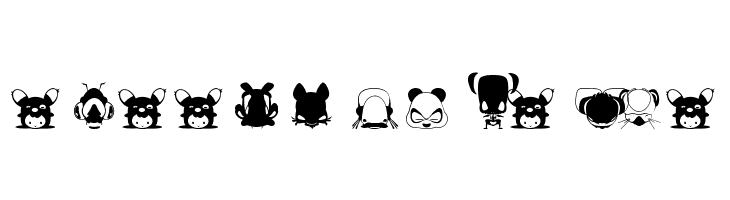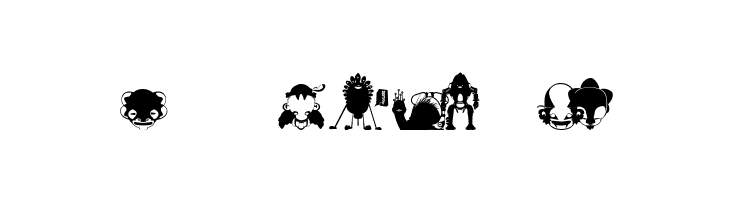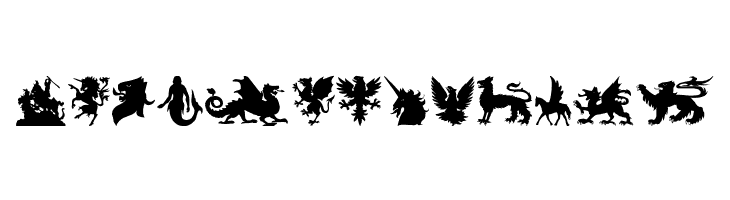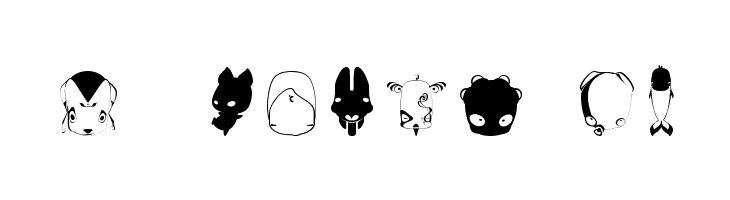
A modern, geometric font with consistent line weight and minimalist design.
A decorative font inspired by prehistoric cave paintings with unique pictograms.
A distressed, grunge-style font with a vintage yet modern appeal.
A distressed, stencil-style font with a vintage, industrial aesthetic.
A bold, decorative font with a 3D effect and mythical, runic-inspired design.
A decorative script font with floral embellishments and a distressed texture.
Science fiction-themed pictogram and icon set with technical illustrations.
Primitive, pictograph-style font with hand-drawn, irregular shapes.
A bold, cartoonish pictogram font with expressive faces and icons.
A bold, expressive font featuring intricate pictorial symbols with artistic flair.
A diverse collection of bold, decorative pictograms and dingbats.
A utilitarian symbol set based on German traffic and road signage.
Western-themed pictogram font with detailed illustrations for each character.
A transport and signage pictogram font with bold, clear icons and sans-serif text.
A dynamic pictogram font featuring stick figures in motion, ideal for creative and thematic designs.
Cycling-themed pictogram font with playful illustrations.
Fantasy-themed pictorial font with mythical creature silhouettes.